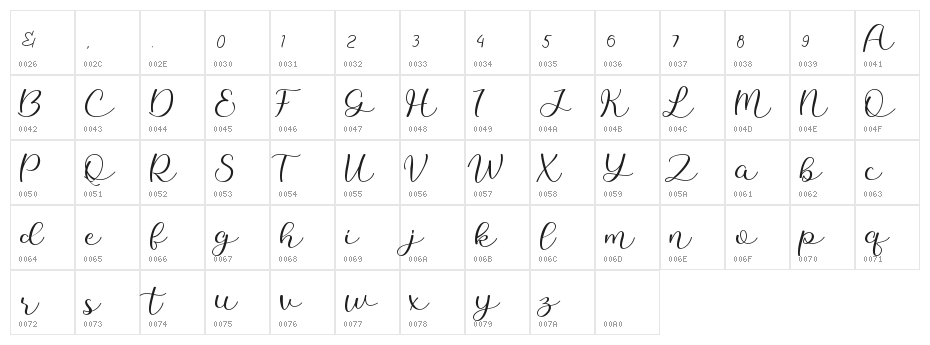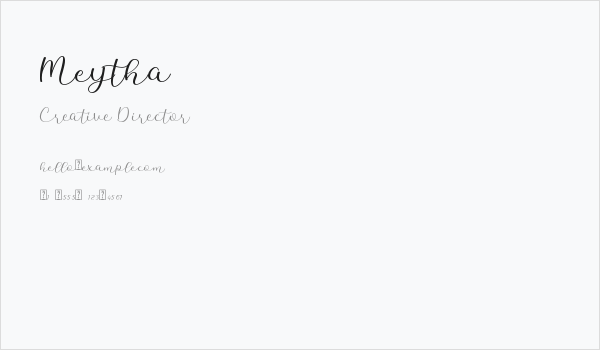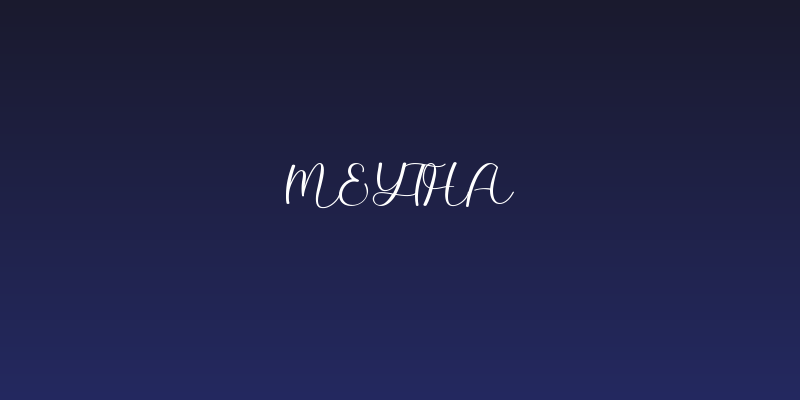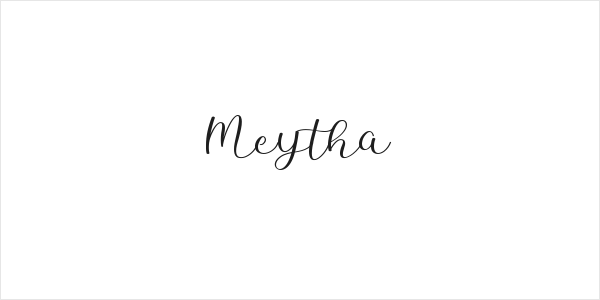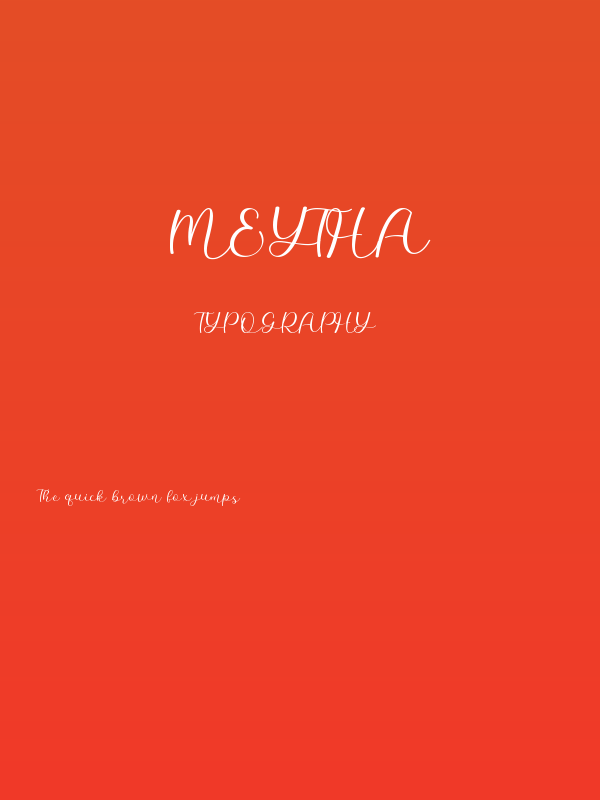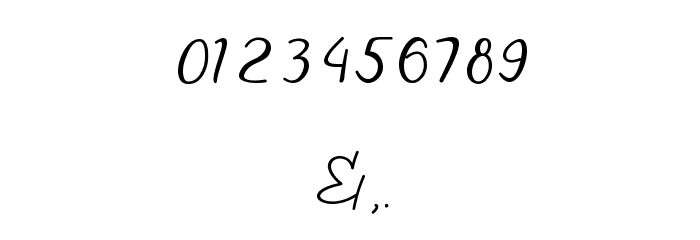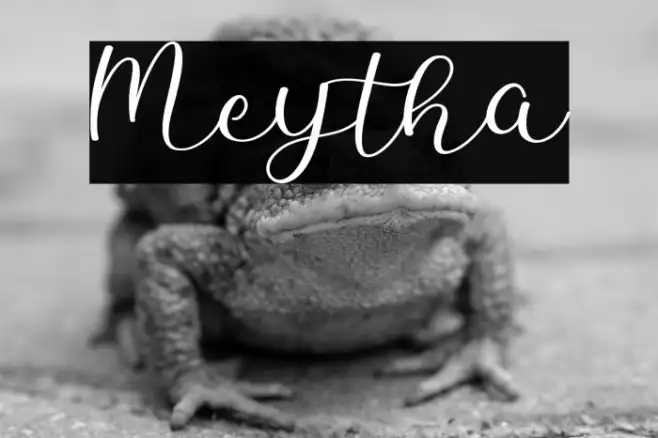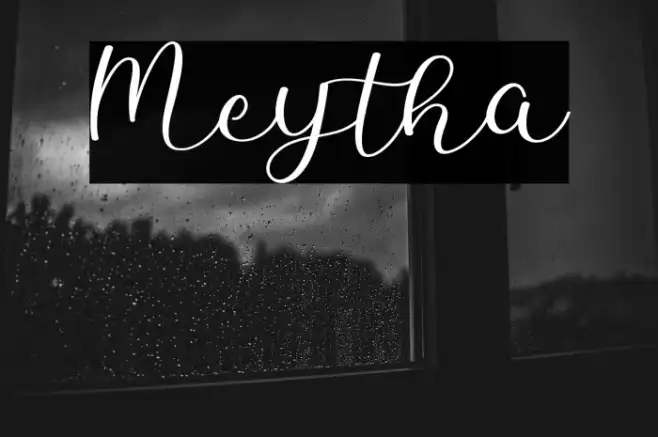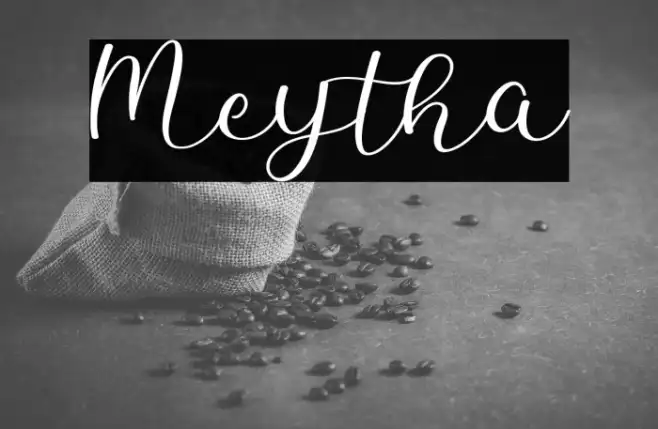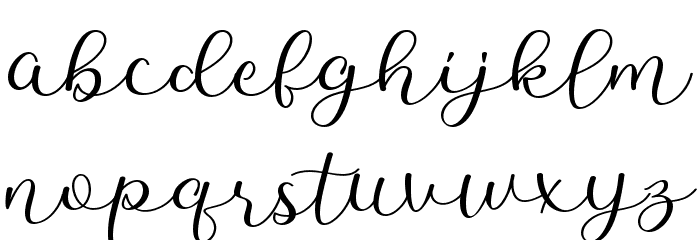
Meytha Font
Meytha Description
This elegant script font features flowing, cursive letterforms with a graceful and sophisticated appearance. The uppercase letters are ornate, with sweeping curves and flourishes that add a touch of formality and style. The lowercase letters maintain a consistent flow, enhancing readability while retaining the decorative nature of the script. The numerals are clear and well-defined, complementing the overall aesthetic. Special characters are designed to match the elegance of the alphabet, making this font versatile for various applications.